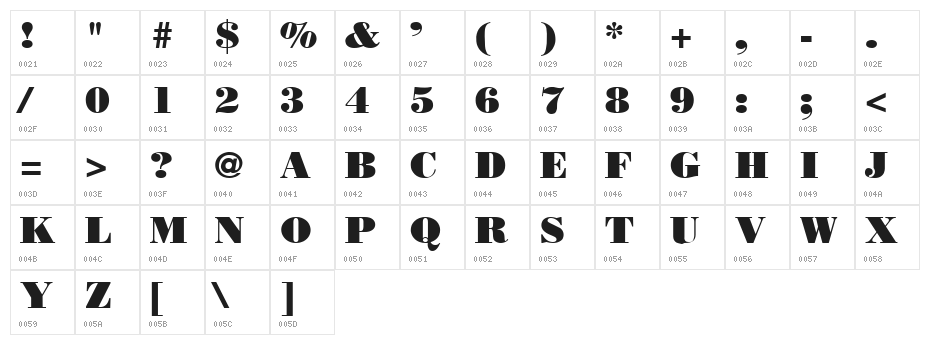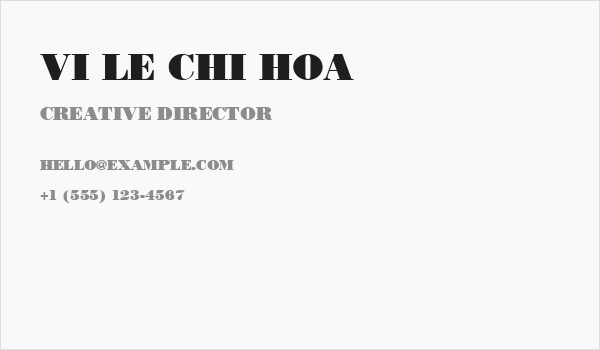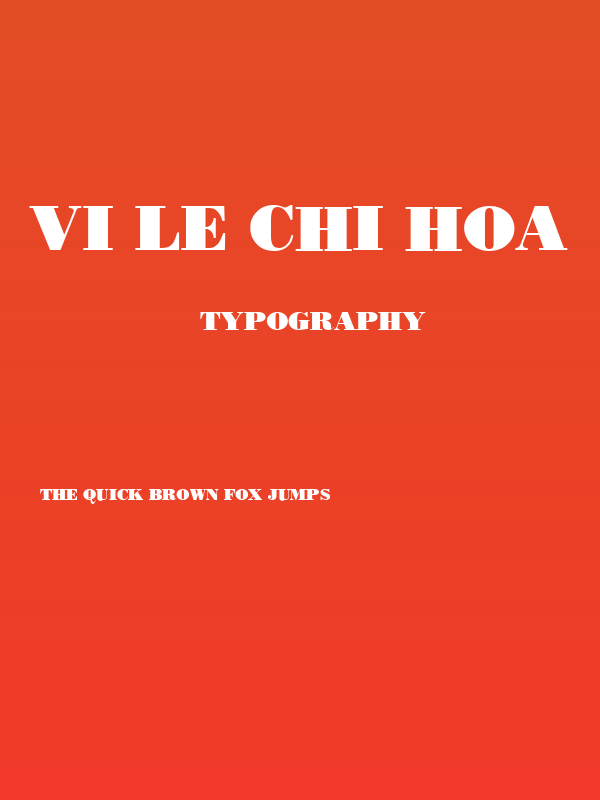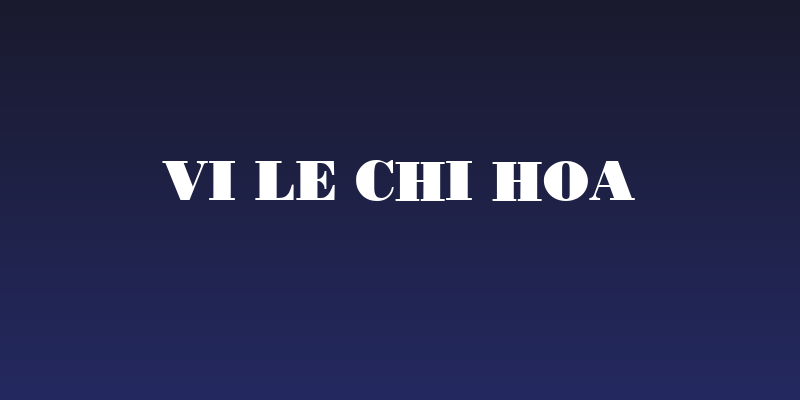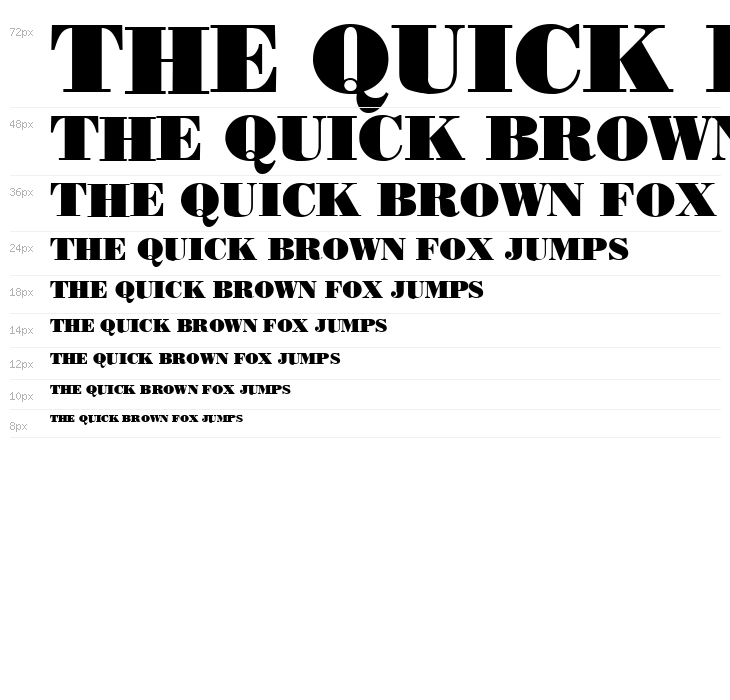
VI Le Chi Hoa Font
VI Le Chi Hoa Description
This font is a bold and striking serif typeface characterized by its thick, dramatic strokes and high contrast between thick and thin lines. The serifs are pronounced and add a touch of elegance and authority to the overall design. The uppercase letters are particularly commanding, making them ideal for headlines and titles. The lowercase letters maintain the same boldness, ensuring consistency across different text sizes. Numbers and special characters are equally robust, providing a cohesive look throughout. The font's style is reminiscent of classic newspaper headlines, yet it carries a modern twist that makes it suitable for contemporary designs.
| Proposed Projects | Ideal for use in magazine headlines, posters, book covers, and branding materials that require a strong and authoritative presence. |